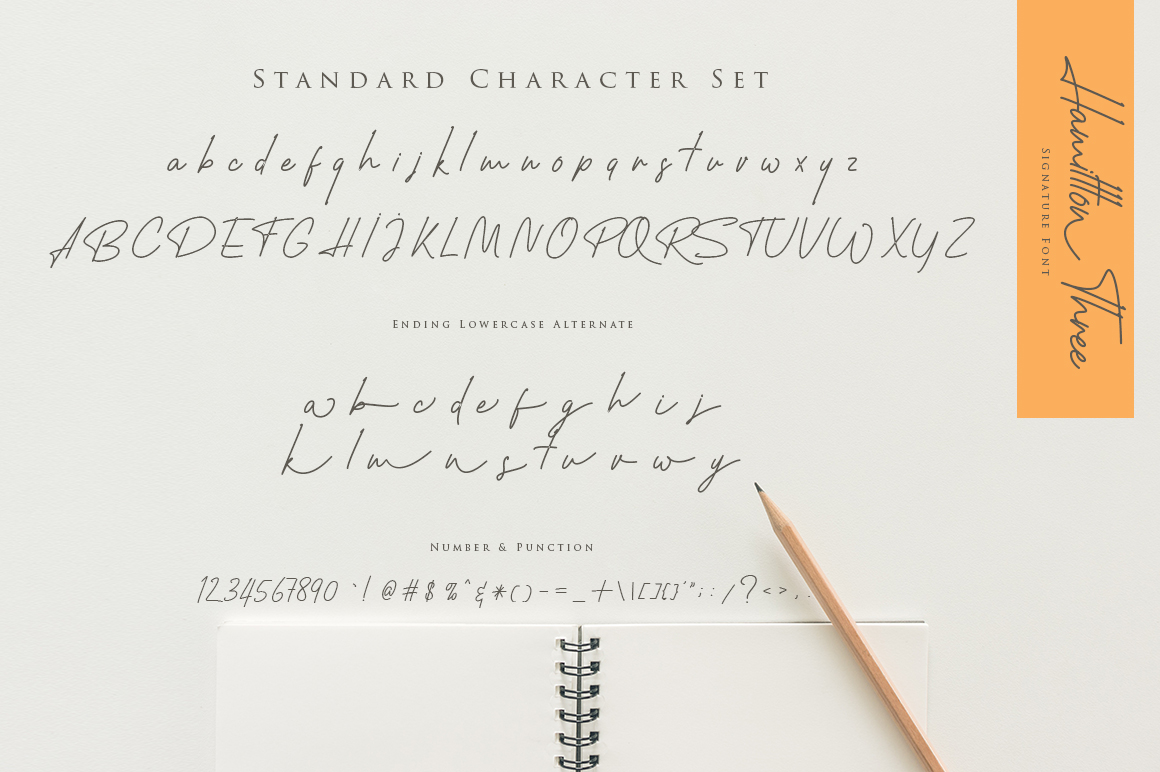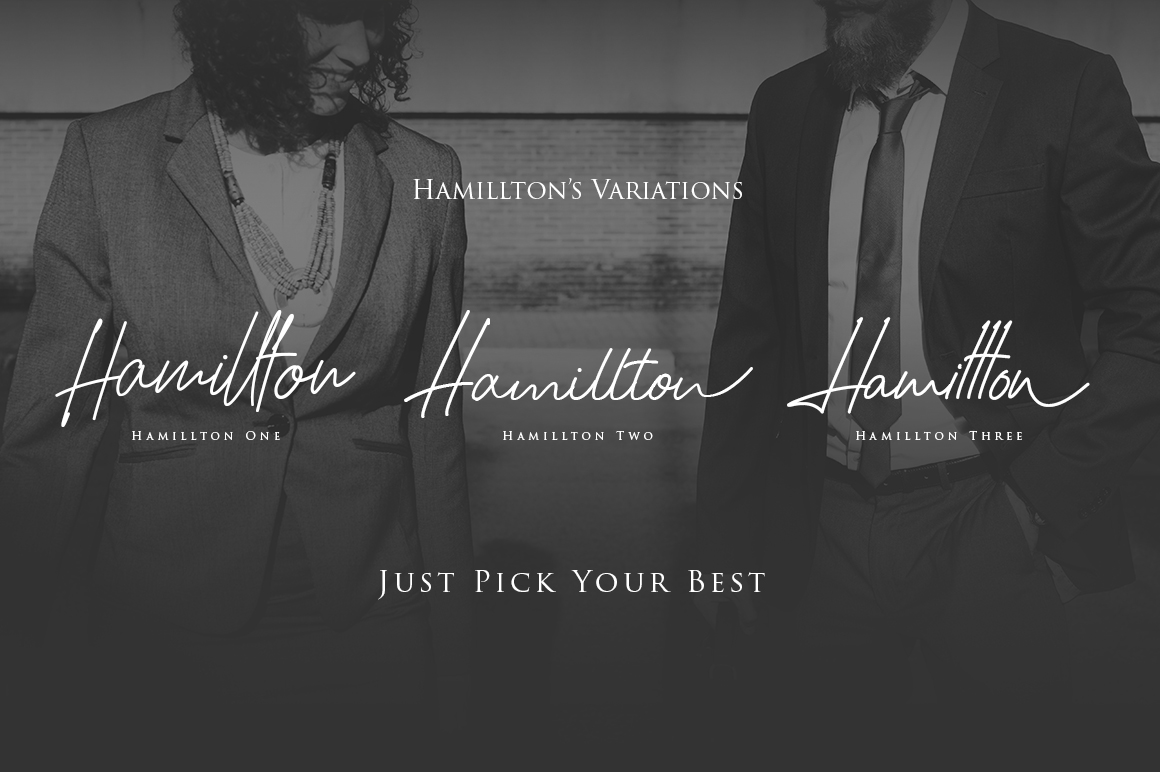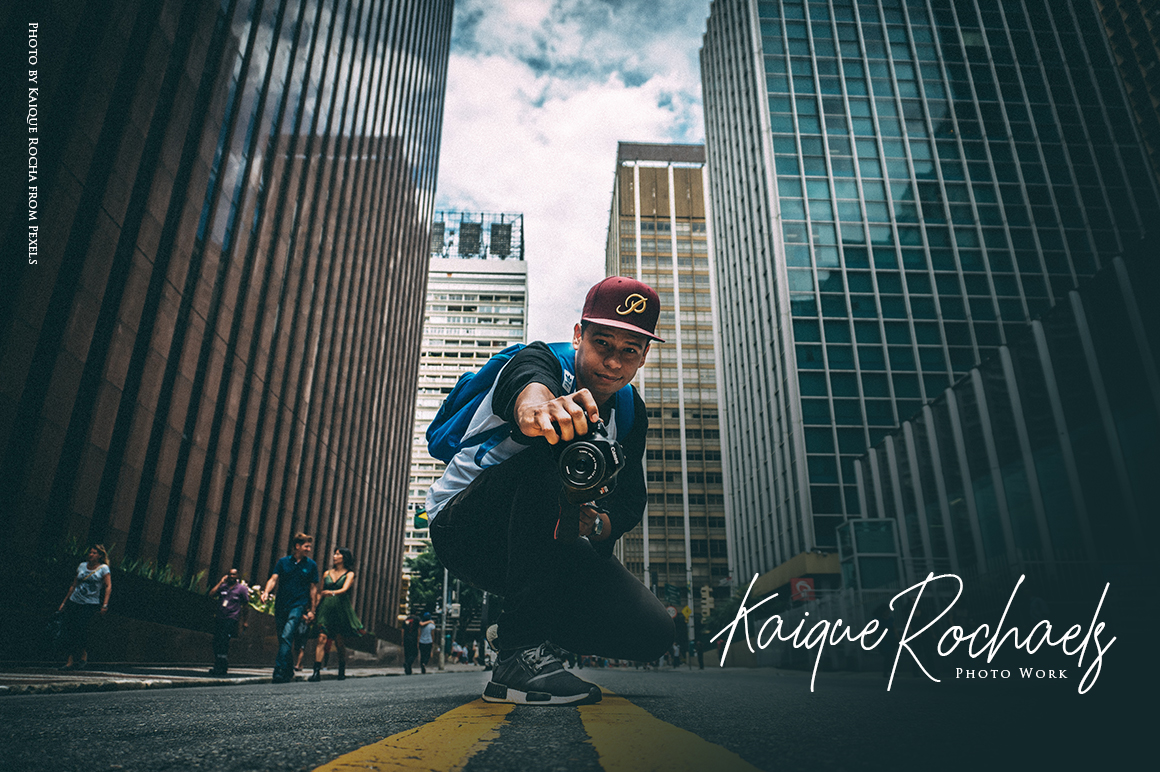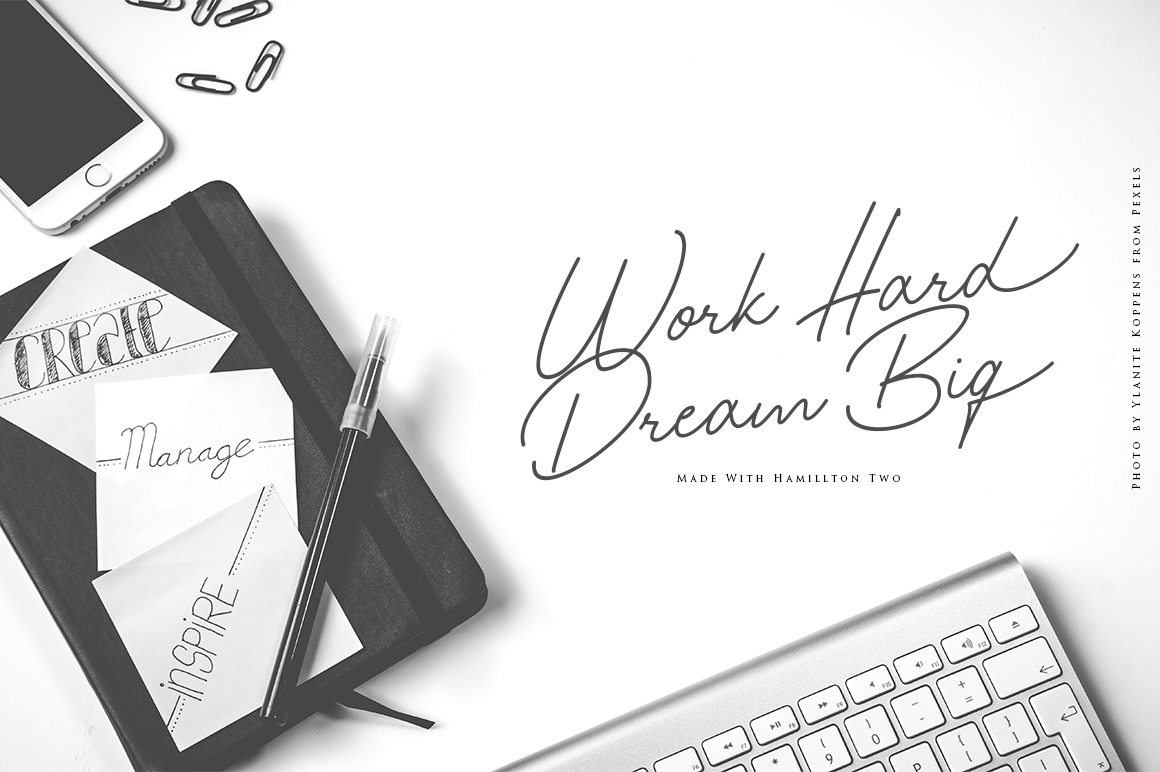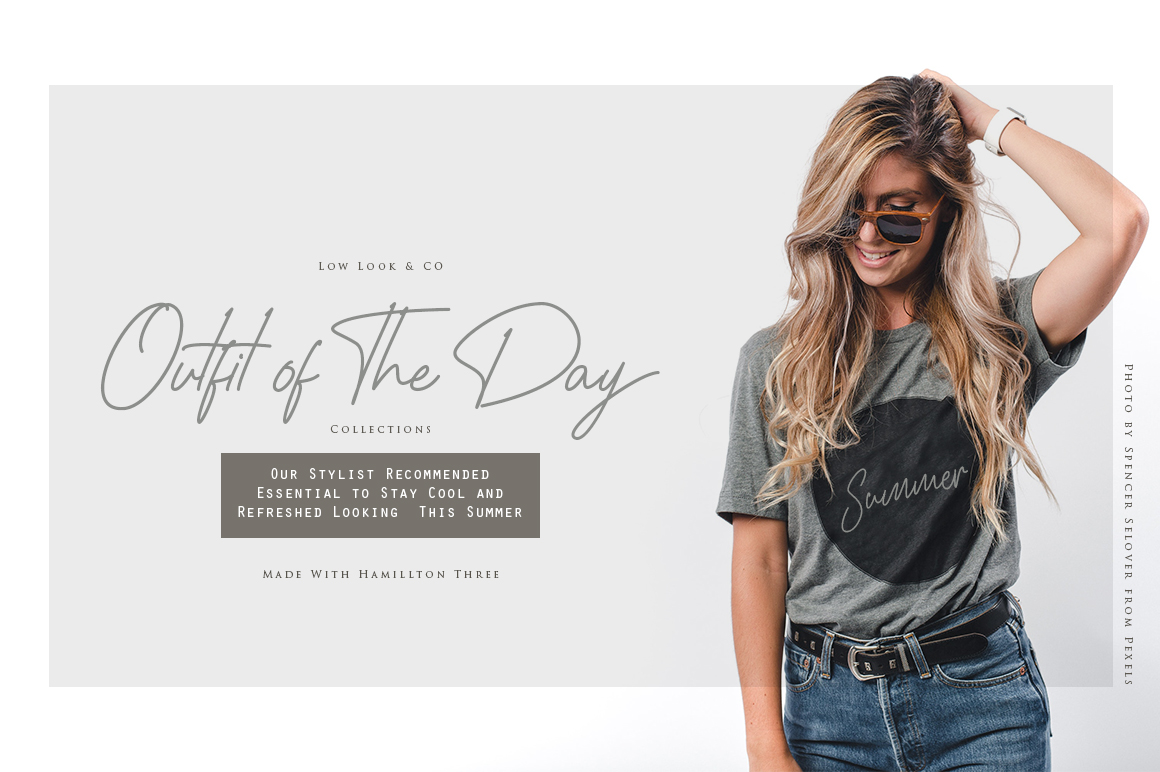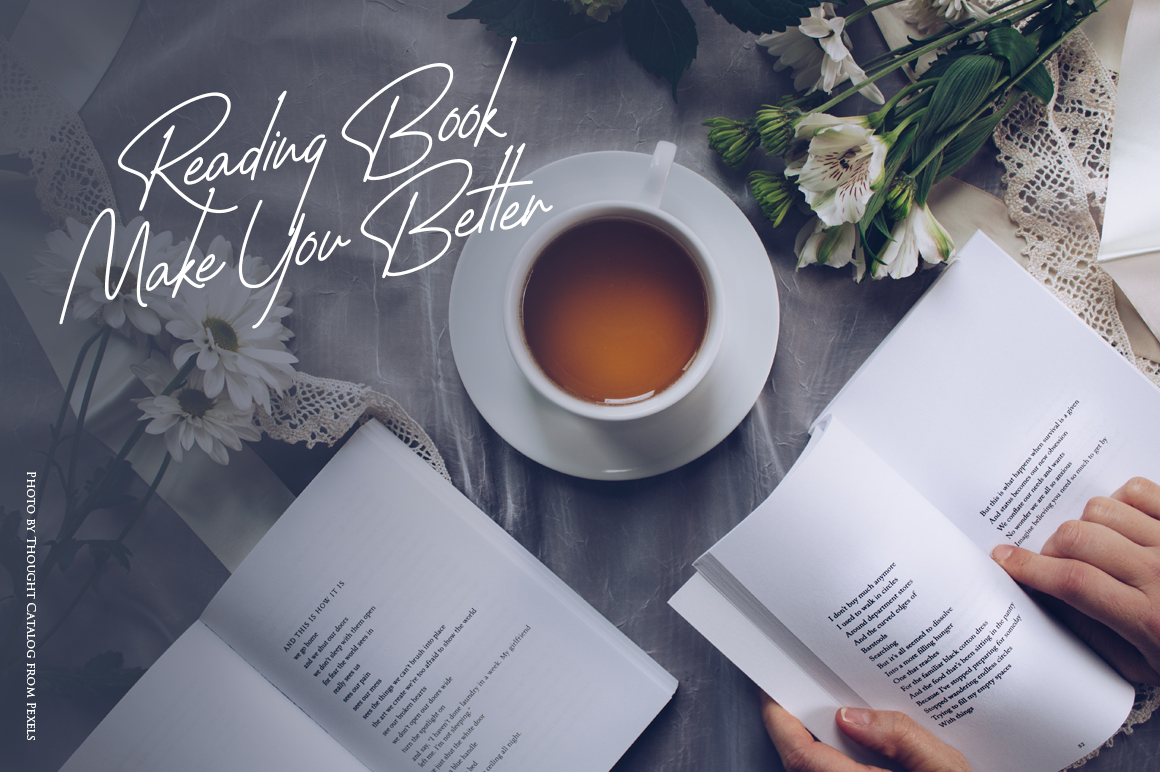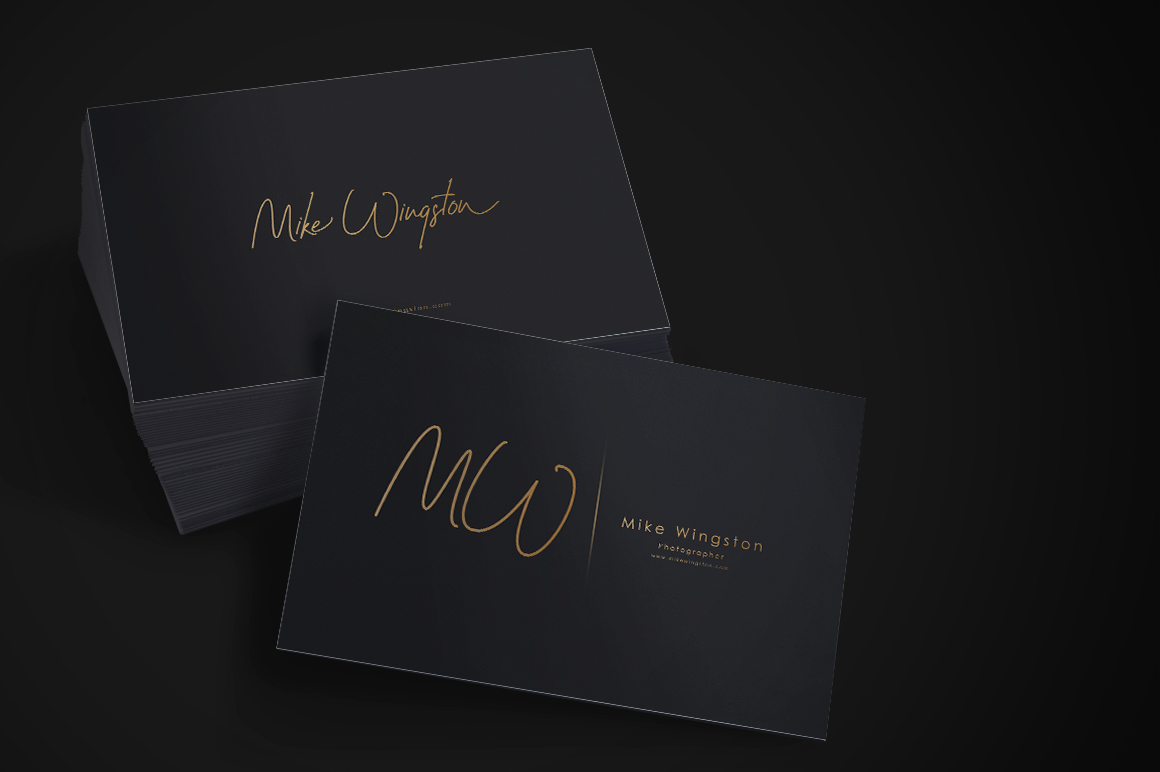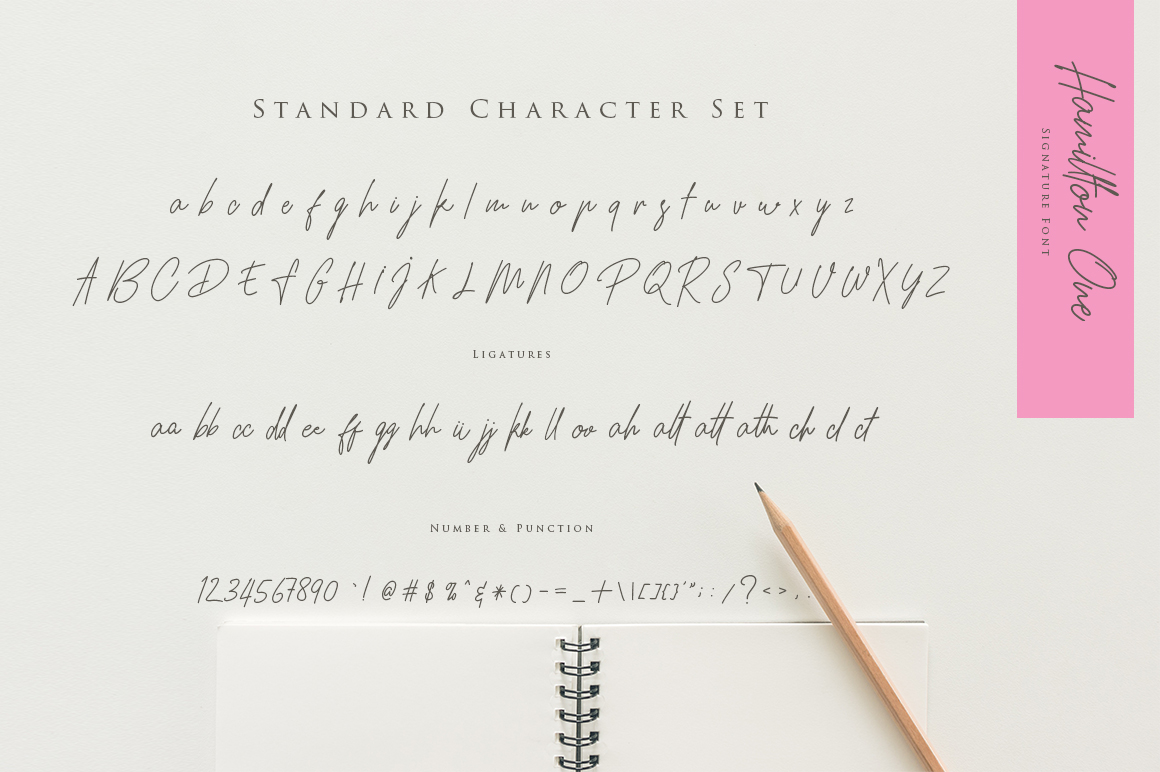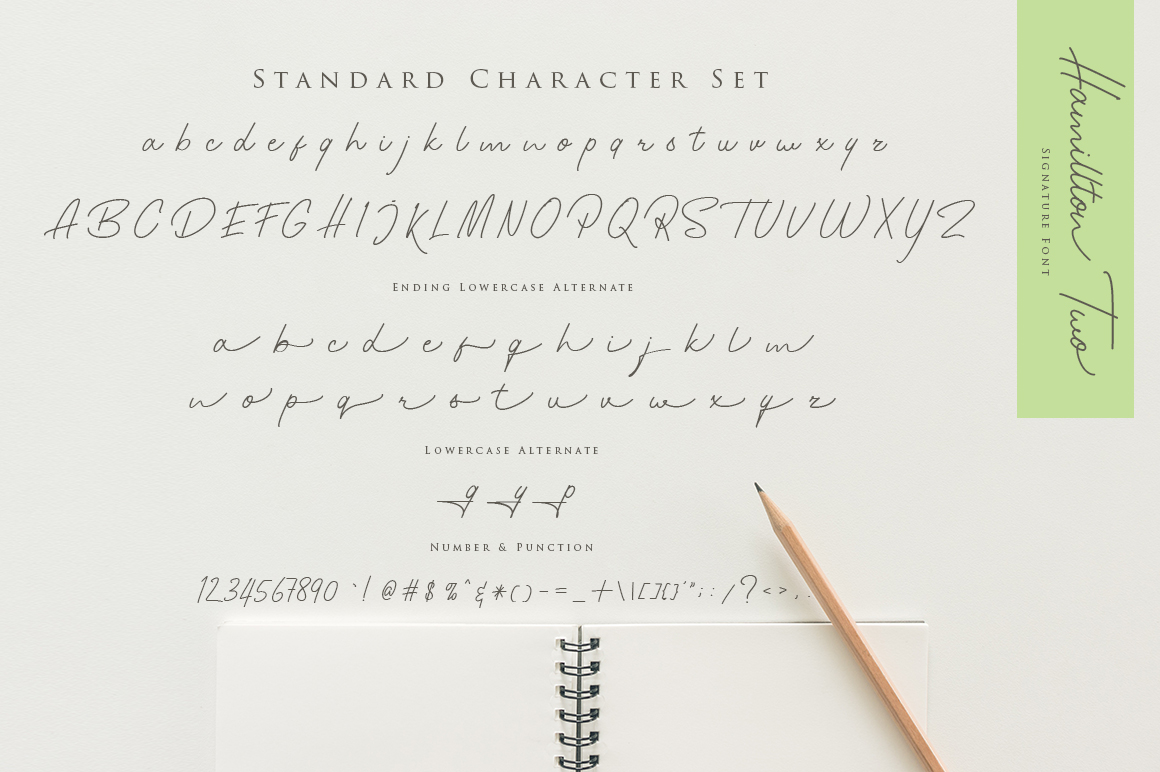
Hamillton Font
About Hamillton Font
Hamillton is a beautiful font family crafted in a simple signature style, kept elegant for use in a wide range of projects. This font comes in 3 variants and looks great in displays, watermarks, logotype, and more.